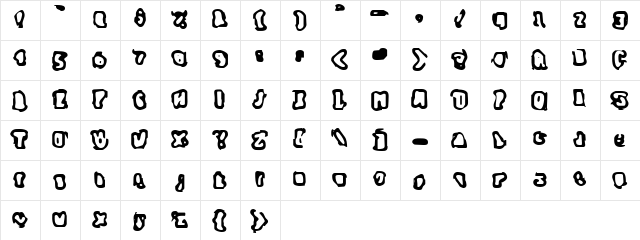
Numan Regular
Design Context for Numan Typeface
Numan is a composed and adaptable typeface that performs quietly and consistently across a wide range of design contexts.